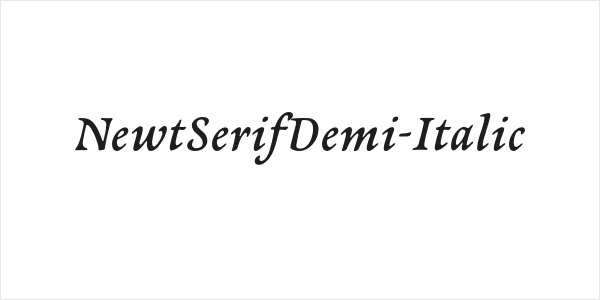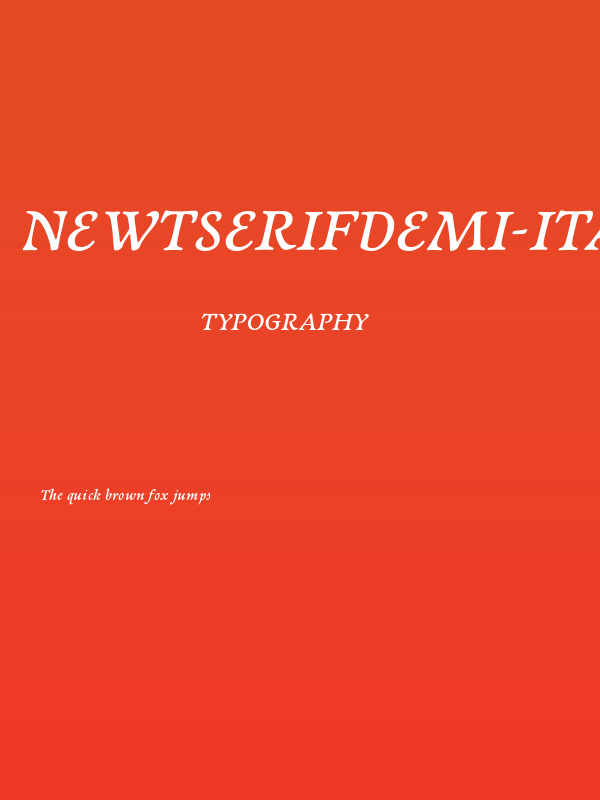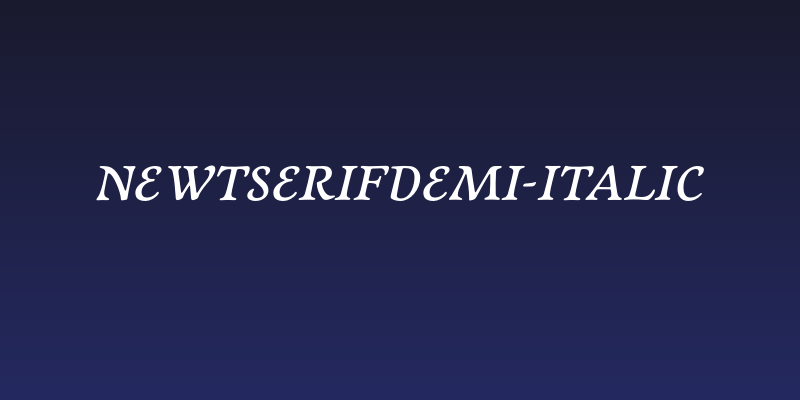
NewtSerifDemi-Italic Font
NewtSerifDemi-Italic Description
This font exhibits a classic serif style with a distinct italic slant, giving it an elegant and sophisticated appearance. The characters are well-defined with moderate contrast between thick and thin strokes, adding to its readability and charm. The uppercase letters feature traditional serif elements, while the lowercase letters maintain a fluid and graceful form. Numerals are clear and consistent, making them suitable for both text and display purposes. Special characters are thoughtfully designed, maintaining the overall aesthetic of the font. The combination of serif details and italic styling makes it versatile for various design needs.
Overall StyleClassic
Proposed ProjectsIdeal for book covers, formal invitations, branding, and editorial design.